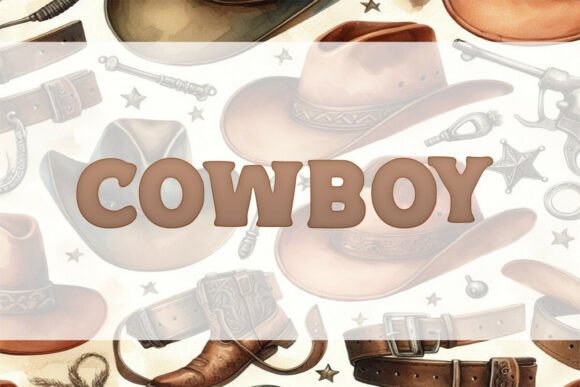
Time to Ride into the Sunset with Cowboy Font
As a designer, have you ever found yourself daydreaming about the open ranges of the Wild West, with the wind in your hair and the sound of a lone cowboy’s lassoing skills in the distance? That’s exactly the kind of rugged, free-spirited creativity that Cowboy Font embodies. This authentic font is perfect for designers who crave a little bit of the Wild West in their designs.
Cowboy Font is more than just a font – it’s a way to tap into the spirit of adventure and freedom that defines the American West. With its bold lines and rugged charm, it’s the perfect choice for punchy headlines, compelling blogs, and arresting logos that demand attention. Whether you’re working on a branding initiative or creating a graphic design that screams “Wild and Free,” Cowboy Font is your trusty steed.
Cowboy Font Key Features
- Font Family: Cowboy Font is a serif font family designed to resemble classic Western typography.
- Unique Characteristics: Distinctive serif and letterform designs inspired by classic Western signage and typography, with a rugged, weathered feel.
Cowboy Font Review
I’ve been experimenting with Cowboy Font for a while now, and here’s my honest take on this font.
- Unique aesthetic: Cowboy Font has a distinctive, rugged feel that’s perfect for western-themed projects or anything that needs a touch of the Wild West.
- Good legibility: Despite its bold appearance, the font is relatively easy to read, even at smaller sizes.
- Customization options: You can adjust the font’s width, weight, and style to suit your design needs.
- Limited language support: The font may not be optimized for certain languages or scripts, which could lead to layout issues or distorted text.
- Not ideal for small text: While the font is readable, it may become difficult to discern individual letters at very small sizes.
Overall, I think Cowboy Font is a great addition to any designer’s toolkit, especially for projects that require a bold, rustic look. However, it’s essential to be aware of its limitations and use it judiciously to avoid any potential issues.
The Cowboy Font is perfect for:
- Western-themed designs and branding
- Rustic or vintage-inspired graphics
- Outdoor or adventure-related projects